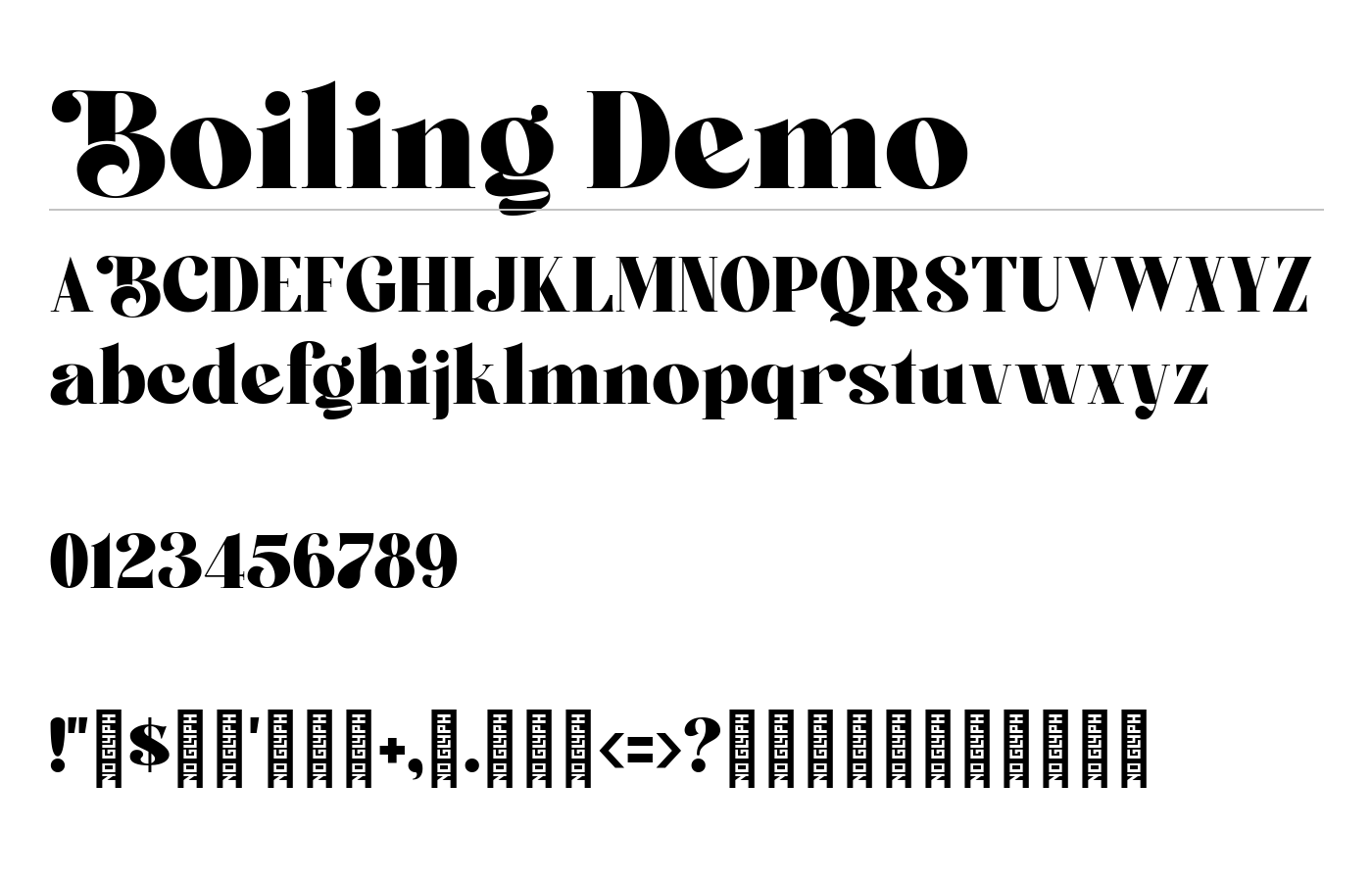
Boiling Demo is a bold serif font with a strong personality, featuring high contrast between thick and thin strokes and distinctive, playful curls on select letters. Its wide, impactful letterforms with thick, bracketed serifs make it ideal for eye-catching headlines and logos that want to convey a vintage or dramatic flair. Perfect for fashion, editorial, and branding uses, this font grabs attention with its unique and elegant style.
Boiling Demo Font
About Boiling Demo Font